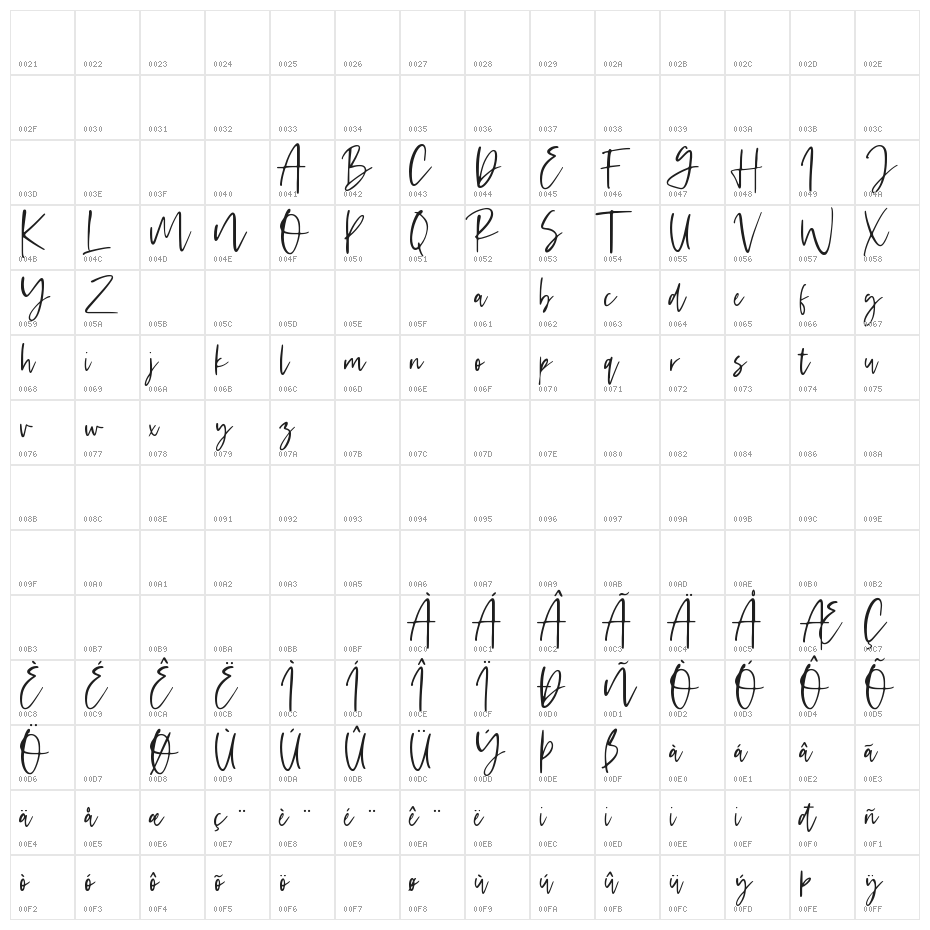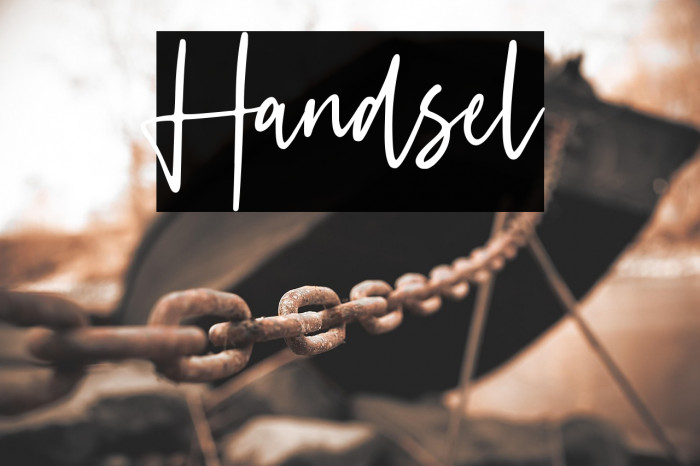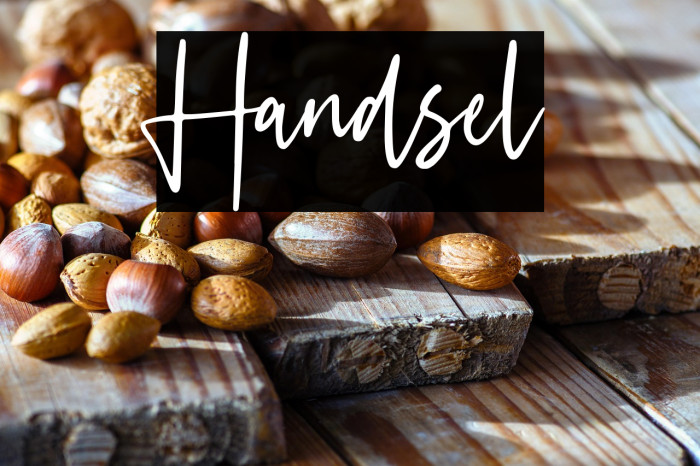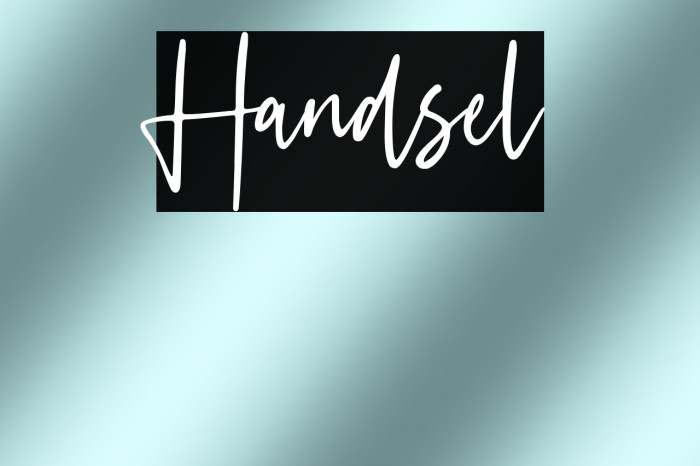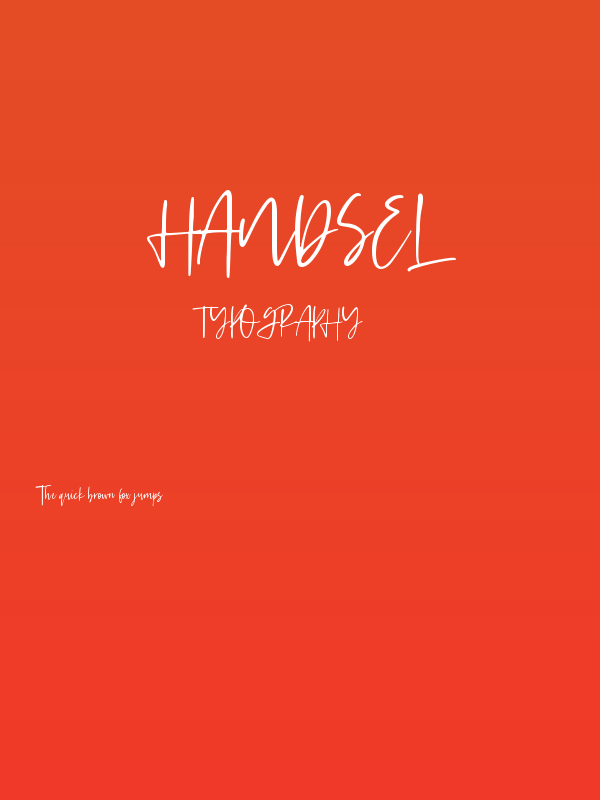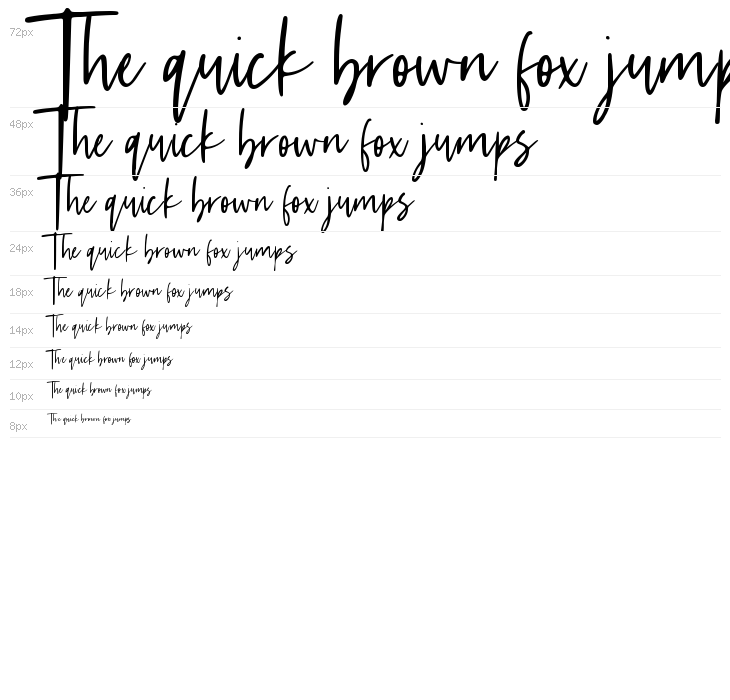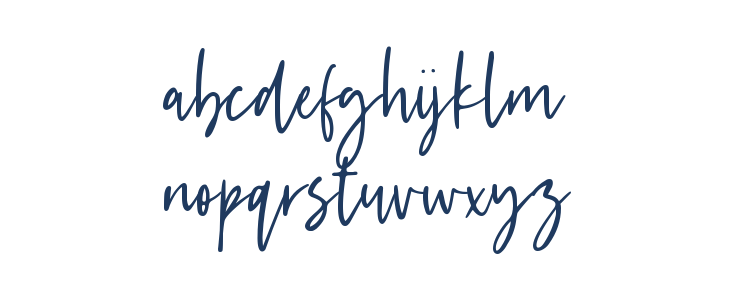
Handsel Font
Handsel Description
This font exudes a lively and expressive handwritten style, characterized by its fluid and dynamic strokes. The uppercase letters are bold and slightly irregular, giving a sense of spontaneity and artistic flair. The lowercase letters maintain a consistent flow, with some letters featuring unique loops and curves that add to the overall charm. The font's playful nature is enhanced by its varying stroke thickness, which adds depth and texture. It's perfect for projects that require a personal touch, such as invitations, greeting cards, or branding materials that aim to convey warmth and creativity.
| Use Case | Logos, Headlines, Invitations |
| Proposed Projects | Ideal for invitations, greeting cards, branding materials, and any project needing a personal touch. |